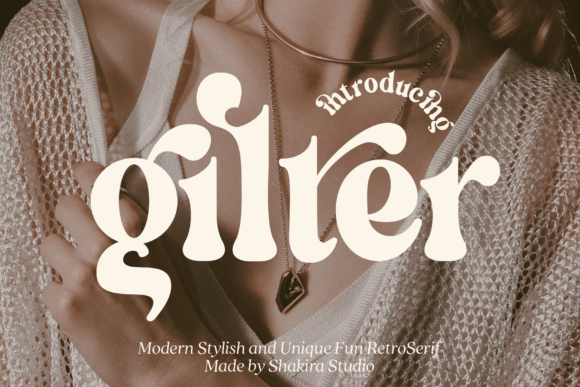
Introducing Gilter Font, the ultimate choice for designers seeking a modern, stylish, and one-of-a-kind touch in their creations. Developed by the talented Shakira Studio, this font is crafted with utmost precision to elevate your designs to new heights.
Gilter Font boasts a perfect blend of fun retro serif shapes and an elegant appearance, making it a must-have for those who crave a creative edge and strive to stand out from the crowd. Its charismatic letter characters exude strength and toughness, while maintaining a warm and inviting aura, ensuring that your designs strike the perfect balance.
Whether you're working on a branding project, packaging design, poster creation, or even a website revamp, Gilter Font is here to transform your vision into a masterpiece. Its versatility knows no bounds, allowing you to explore endless possibilities and unleash your creativity like never before.
Captivate your audience with Gilter Font's unique charm, leaving a lasting impression that is hard to forget. Each letter is carefully crafted to evoke a sense of emotion and connect with your target audience on a deeper level. From the moment they lay eyes on your designs, they will be captivated by the font's captivating allure.
Unlock a world of design possibilities with Gilter Font's extensive range of weights and styles. Whether you prefer a bold and striking statement or a subtle and sophisticated touch, this font has got you covered. Its flexibility ensures that it adapts seamlessly to any design concept, making it an invaluable asset in your creative arsenal.
But Gilter Font isn't just about aesthetics; it's also about functionality. With its impeccable readability, your message will effortlessly resonate with your audience, ensuring that your designs communicate effectively and leave a lasting impact. Say goodbye to dull and uninspiring typography, and say hello to Gilter Font's captivating charisma.
So why wait? Elevate your designs to new heights with Gilter Font. Join the ranks of renowned designers who have embraced its charm and witnessed their creations soar to new levels of success. Stand out from the competition, captivate your audience, and leave a lasting impression that will make them come back for more.
Experience the power of Gilter Font today and revolutionize your designs. Unleash your creativity, defy the ordinary, and create extraordinary designs that leave a mark. Your journey towards design excellence starts here.